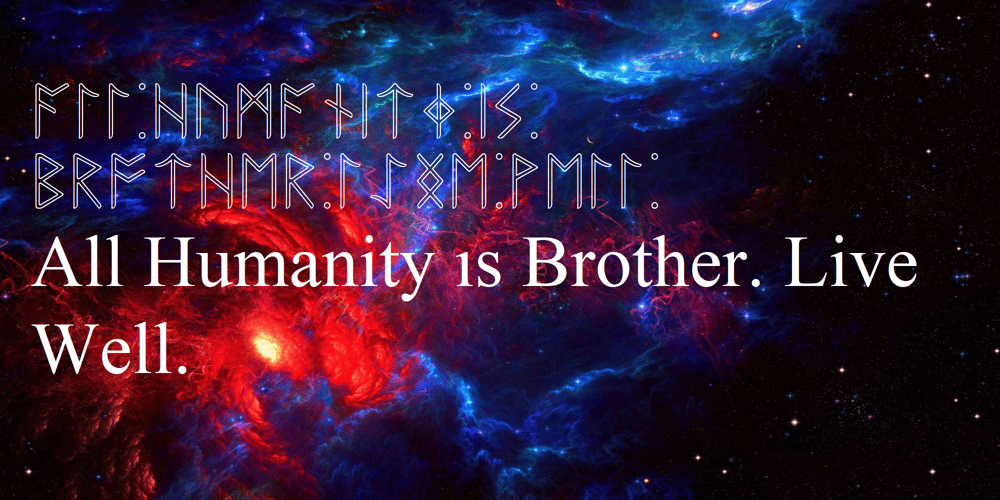
Ongunkan Anglo Saxon Spirit
Ongunkan Anglo Saxon Spirit font
Ongunkan Anglo Saxon Spirit Font Family was designed by Osman Nuri ALKAN and published by Runic World Tamgacı. Ongunkan Anglo Saxon Spirit contains 1 styles and family package options. I present it to you as a hollow-style transparent design of the Anglo-Saxon Runic inscription. Use it with pleasure.